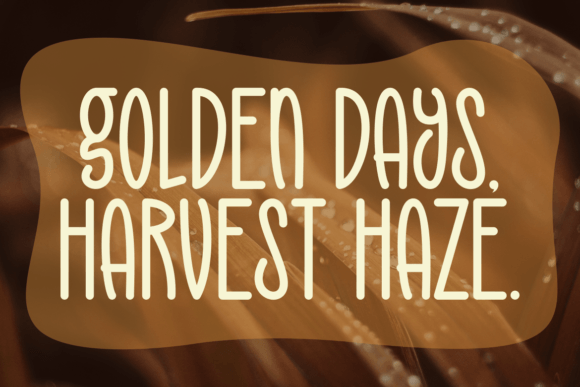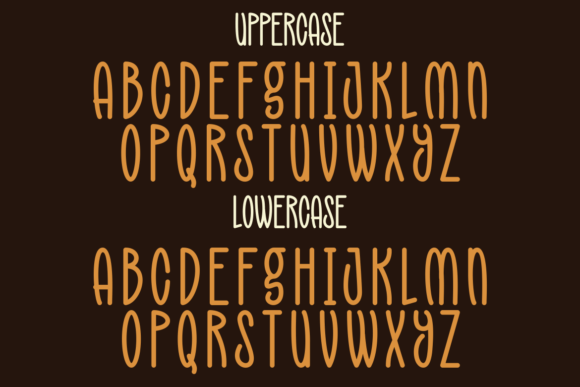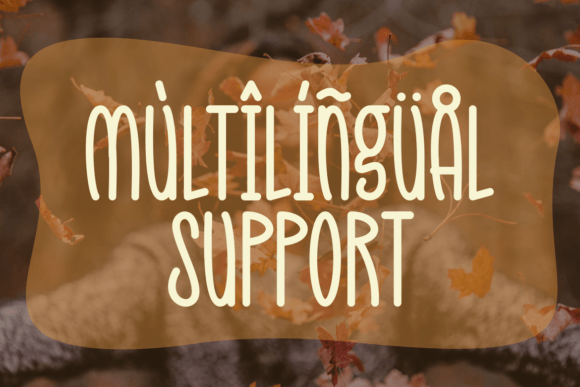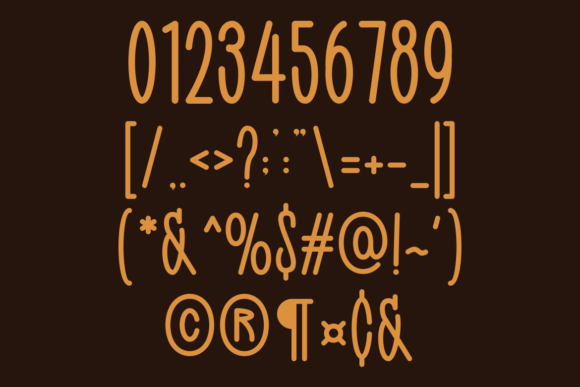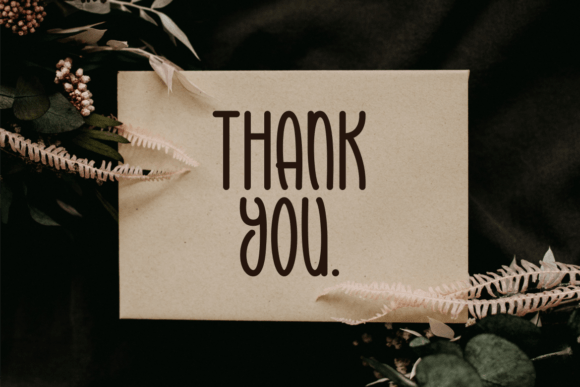
Introduction to Lucky Fall Font
As you sit with a warm cup of coffee, surrounded by the vibrant colors of the changing leaves, the urge to create something special strikes you. The gentle rustle of the wind, the soft sunlight filtering through the trees, and the scent of fallen leaves all blend together to inspire your next creative project. It’s moments like these that remind us of the beauty and tranquility of the autumn season.
For designers, capturing the essence of this magical time of year is crucial, and that’s where the Lucky Fall Font comes in. This delightful font is specifically designed to evoke the warmth and nostalgia of the fall season, making it the perfect design resource for your next creative project.
Key Features of Lucky Fall Font
- High-quality, unique design for creative projects: Lucky Fall Font is a perfect choice for designers and artists looking for a distinctive and eye-catching typography.
- Transparent background: This font features a transparent background, making it ideal for use on various backgrounds and designs.
- Scalable and versatile: Lucky Fall Font can be scaled up or down without losing its quality, making it perfect for use in various design contexts, from small logos to large-scale signage.
- High-resolution design: With a resolution of 300 DPI, Lucky Fall Font is suitable for use in high-resolution designs, such as print materials and digital displays.
- Perfect for creative projects: Lucky Fall Font is an excellent choice for designers working on creative projects, such as branding, advertising, and packaging design.
Honest Review: Lucky Fall Font
I recently had the chance to work with the Lucky Fall Font and I must say it’s a solid addition to any designer’s toolkit. ✨ The high quality of this font is evident from the moment you download it, with crisp and clear lettering that’s perfect for any creative project.
One of the standout features of the Lucky Fall Font is its transparent background, making it easy to layer over other design elements without worrying about unwanted backgrounds. This is especially useful for designers who work on complex designs.
Here are some of the things that work well with the Lucky Fall Font:
- High quality lettering
- No bold or italic variations
Overall, I’m impressed with the Lucky Fall Font. It’s a great resource for designers who want to add a touch of elegance to their projects. While it may not be perfect, it’s definitely worth checking out – especially since it’s available for free download.
To get the most out of the Lucky Fall Font, experiment with different font sizes, colors, and combinations to create unique and visually appealing designs. Use the font in conjunction with other design elements, such as graphics and images, to add depth and interest to your project.
The Lucky Fall Font is perfect for a variety of creative projects, including invitations, posters, social media graphics, logos, brochures, business cards, presentations, reports, and documents.